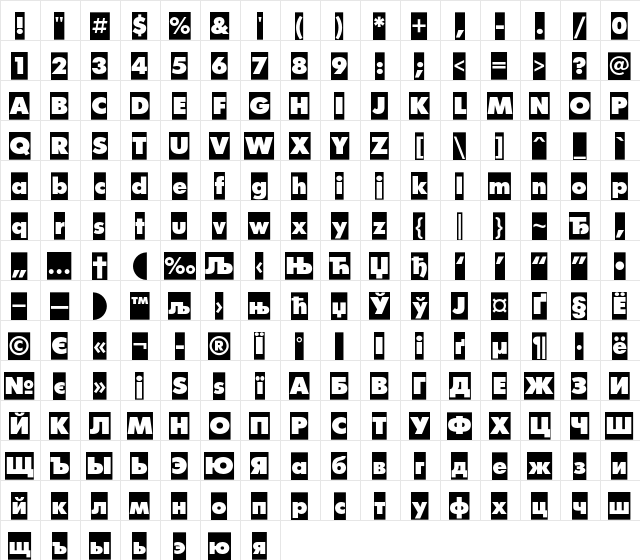
FuturisXCameoC Regular
Design Context for FuturisXCameoC Typeface
FuturisXCameoC has a distinctly futuristic character, with geometric precision and clean angles that feel at home in technology, gaming, and sci-fi contexts.